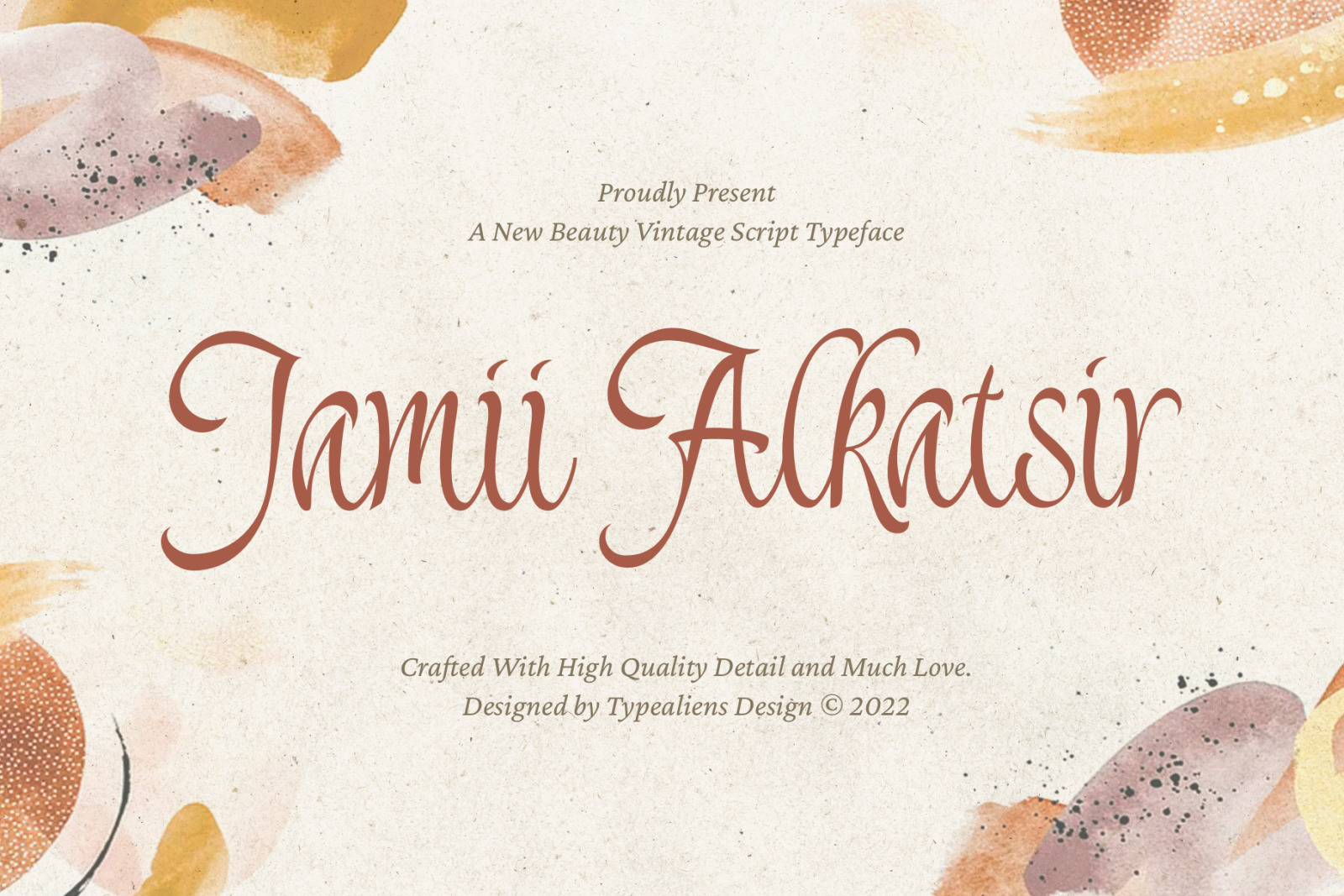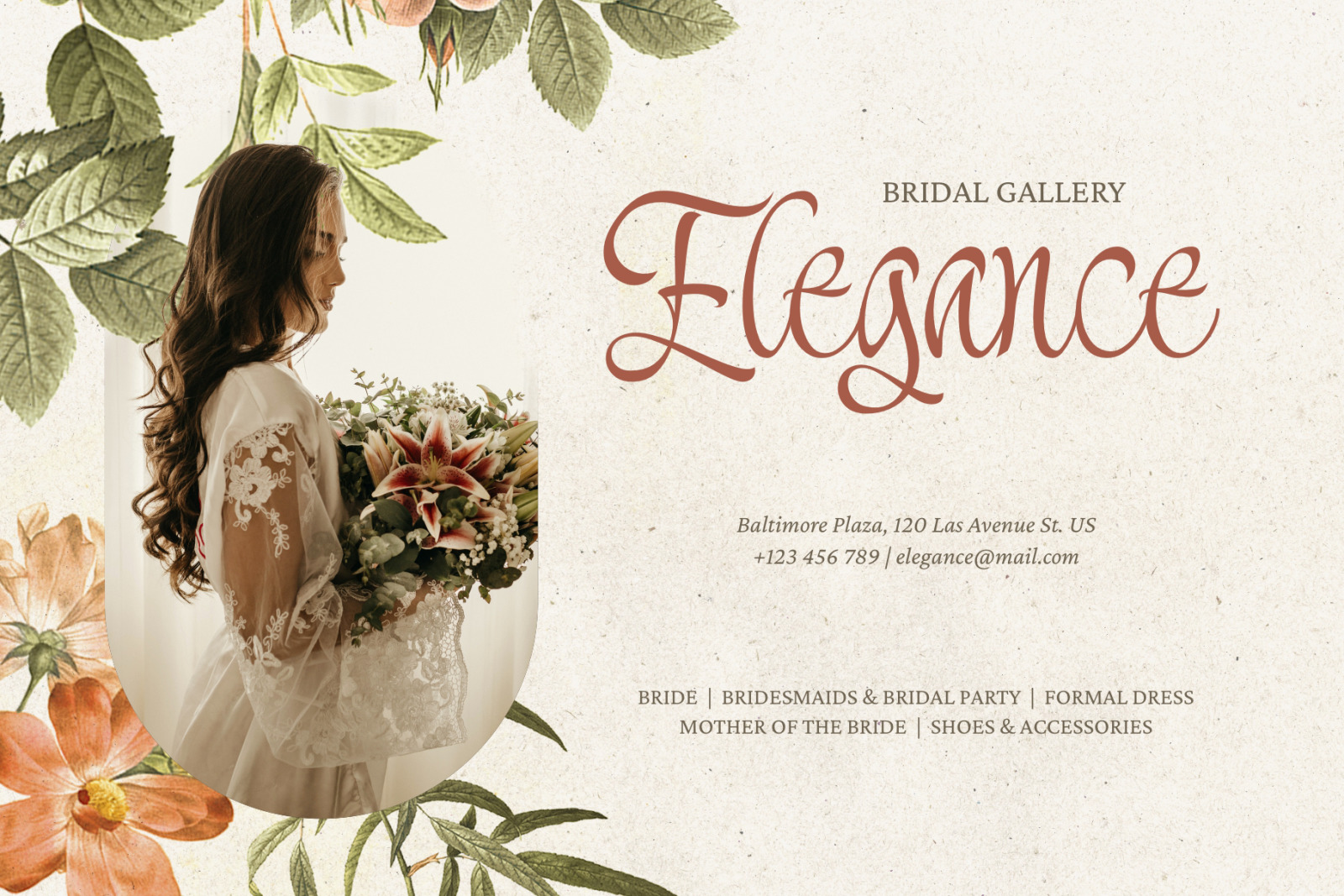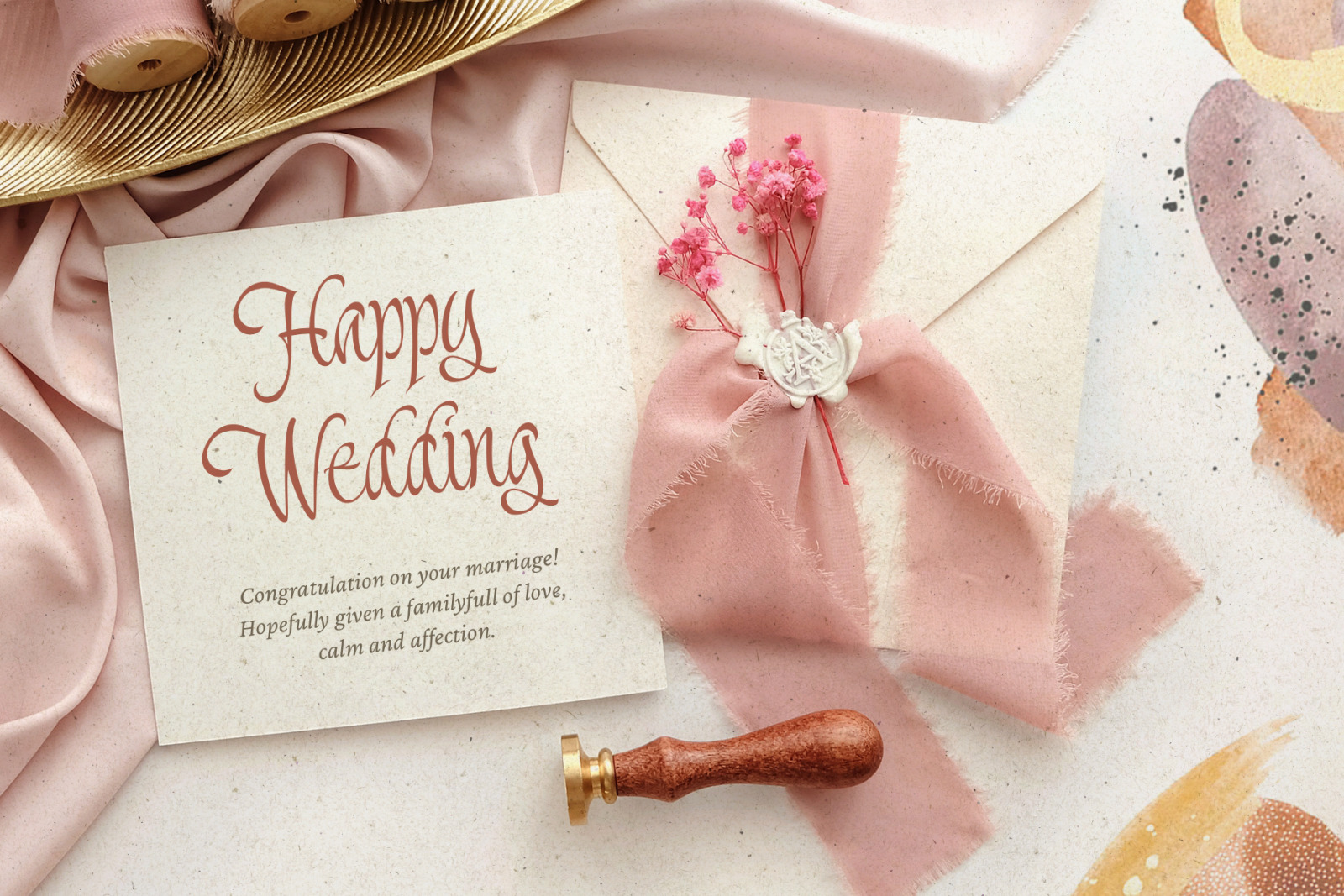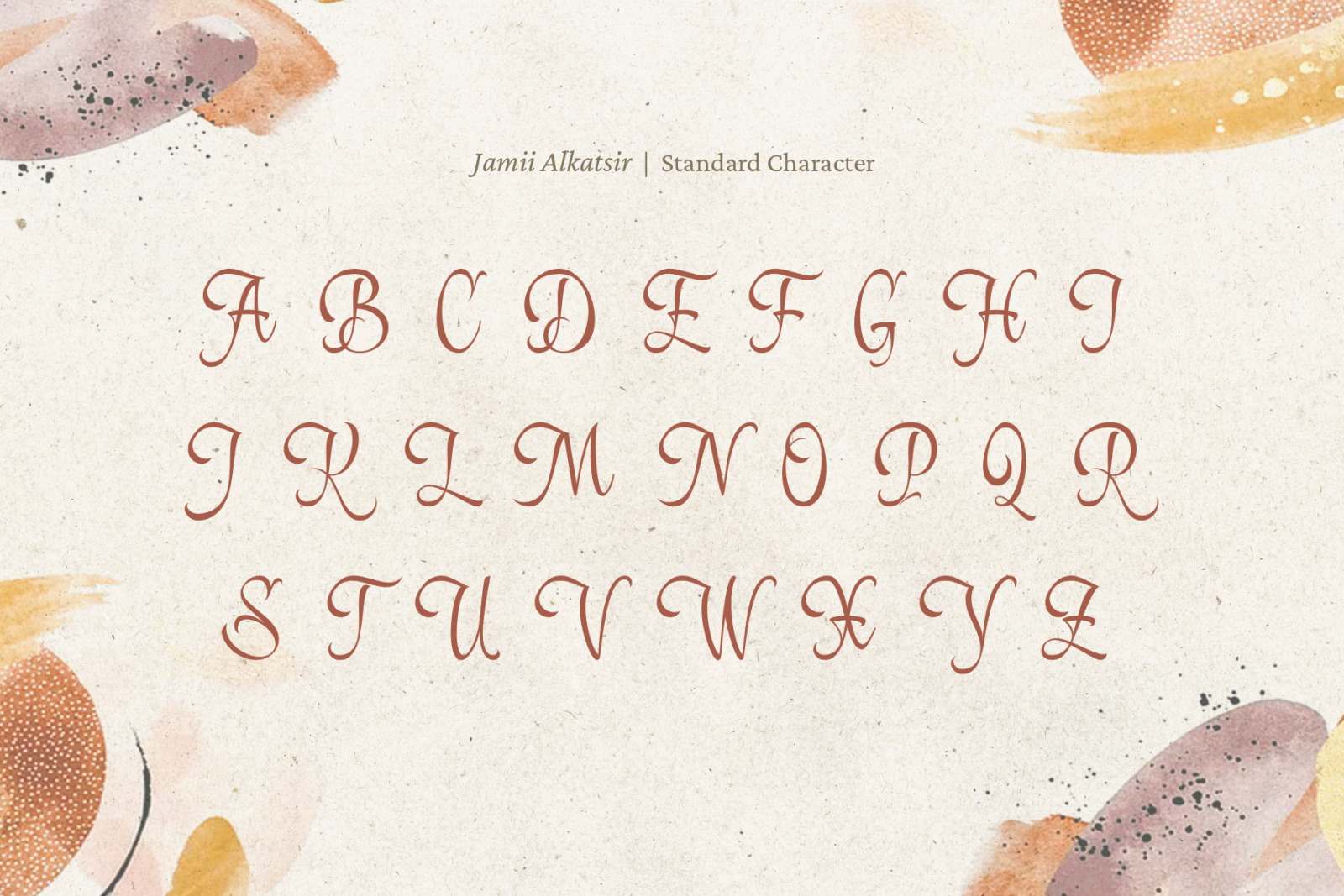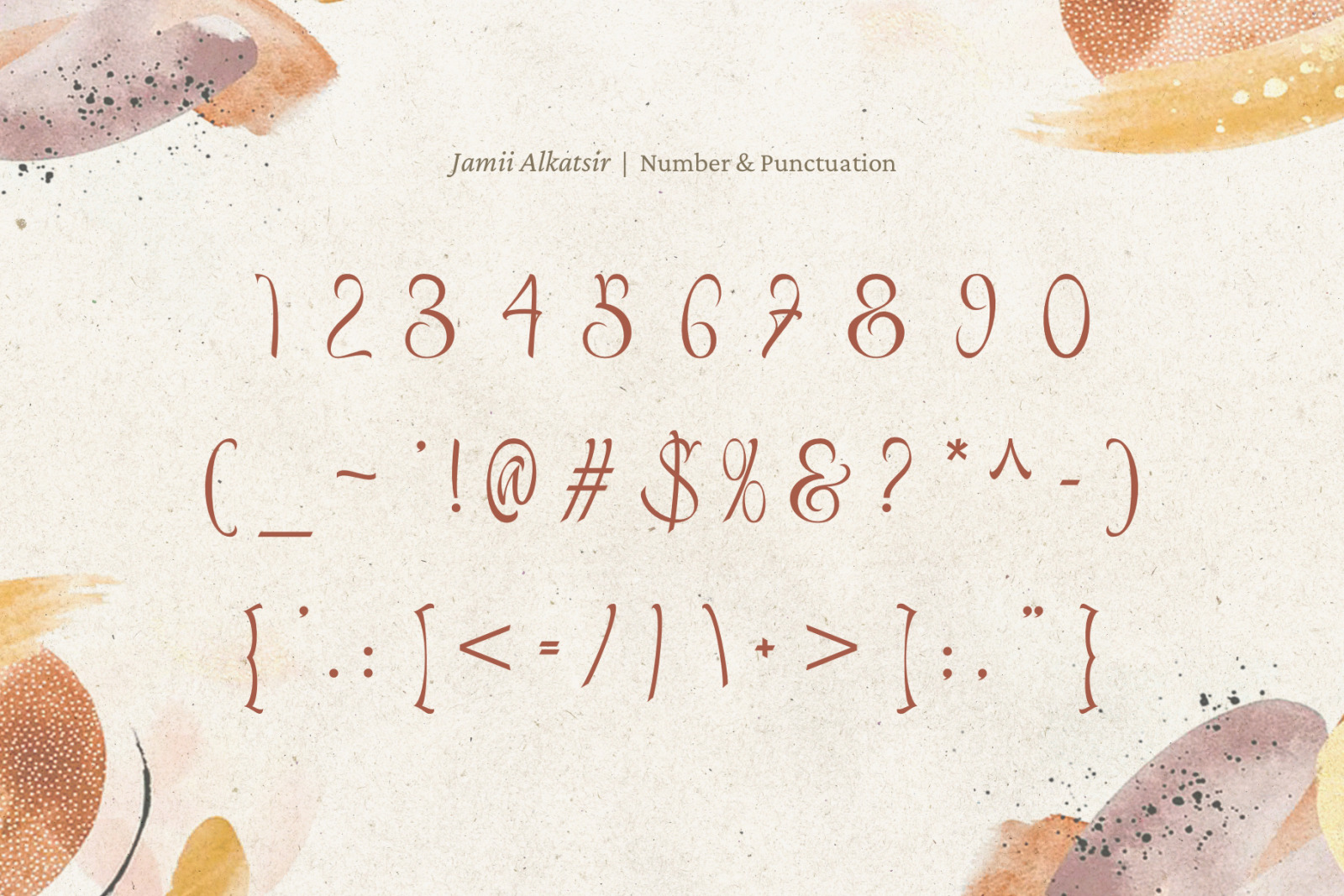
Jamii Alkatsir Font
JAMII ALKATSIR is a script font with a middle eastern style, suitable for modern designs with the impression of middle eastern culture. Beautiful and unique font.
It is suitable for wedding invitation designs or modern designs for fashion brands.